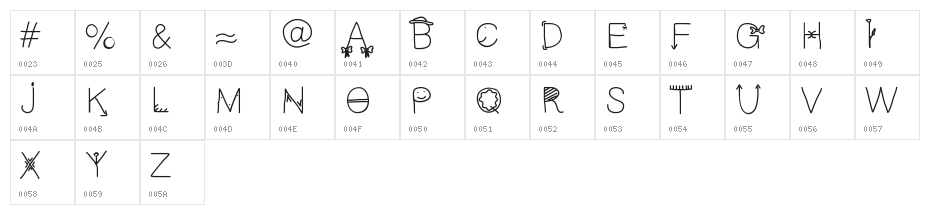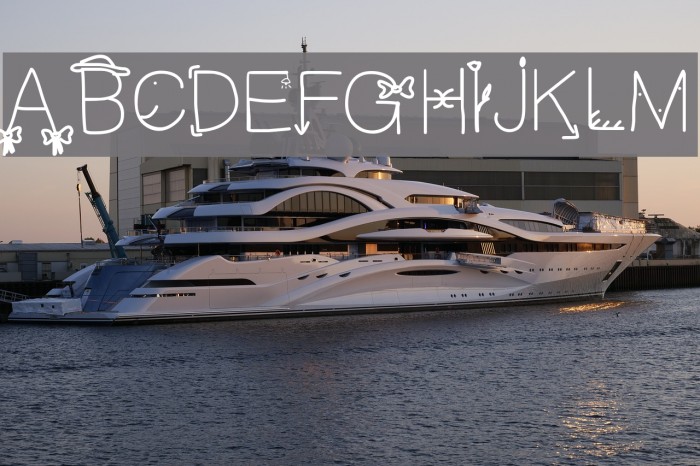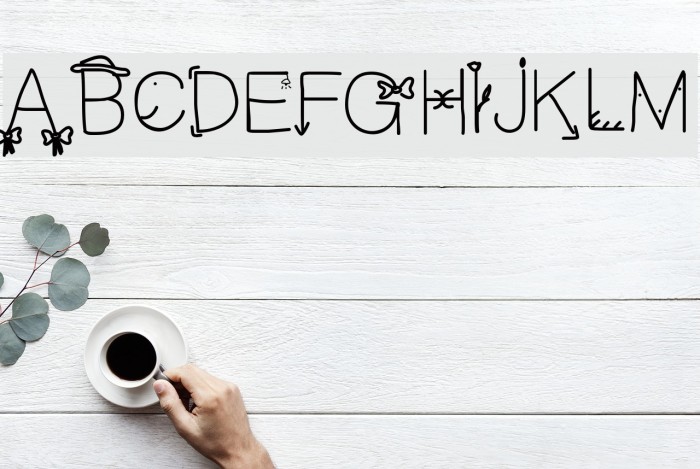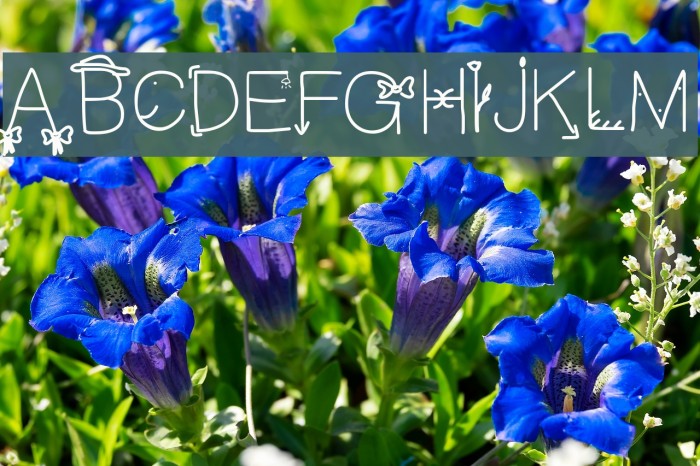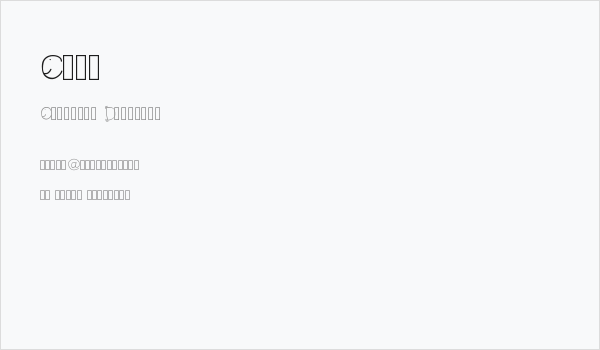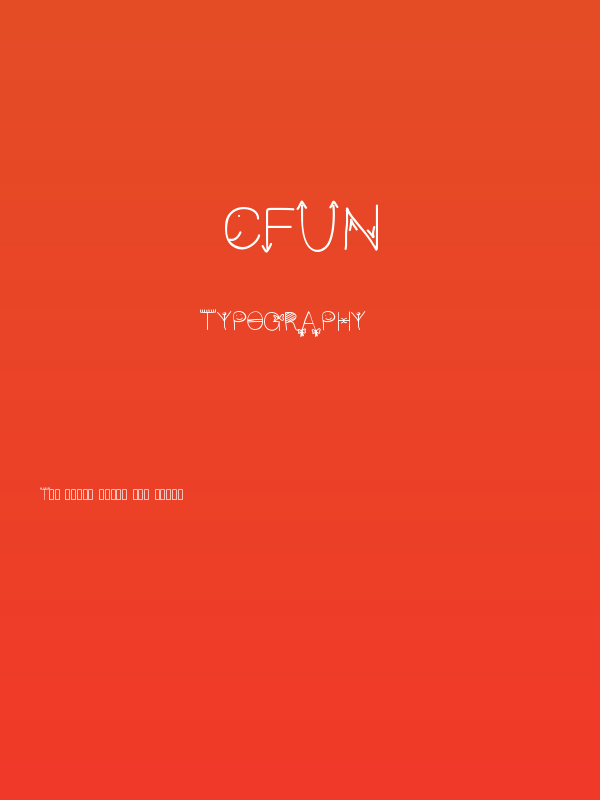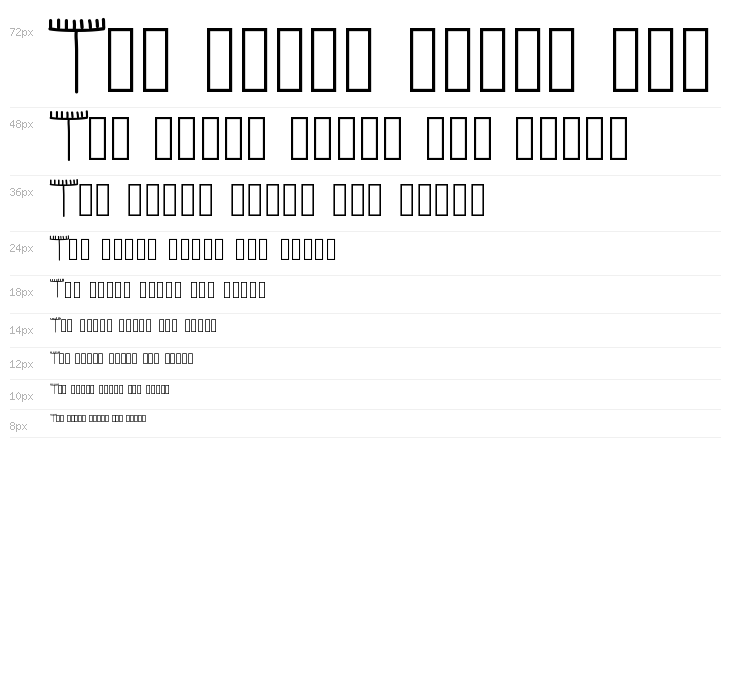
Cfun Font
Cfun Description
This font is a playful and whimsical decorative style, incorporating various unique elements into each letterform. The uppercase letters feature creative embellishments such as arrows, stars, and other symbols, giving each character a distinct personality. The design is highly imaginative, with each letter incorporating a different motif, making it ideal for projects that require a fun and engaging aesthetic. The font is not suitable for body text due to its intricate details but excels in capturing attention in headlines or creative projects.
| Proposed Projects | Ideal for children's book covers, playful posters, creative branding, and event invitations. |